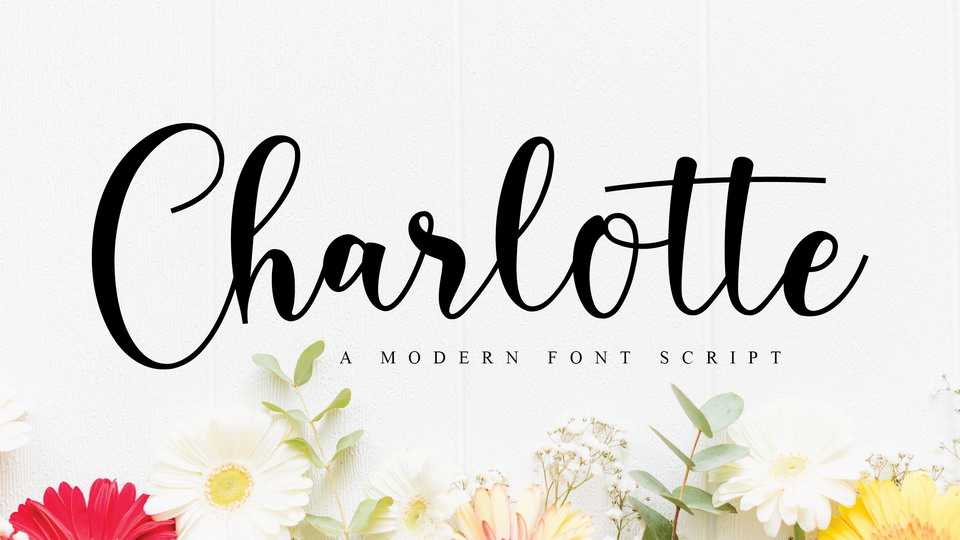
Download Charlotte font, a beautiful script typeface. Charlotte has a classy, elegant, and modern look that can be used for logos, branding, invitations, stationary, wedding designs, social media posts and more.